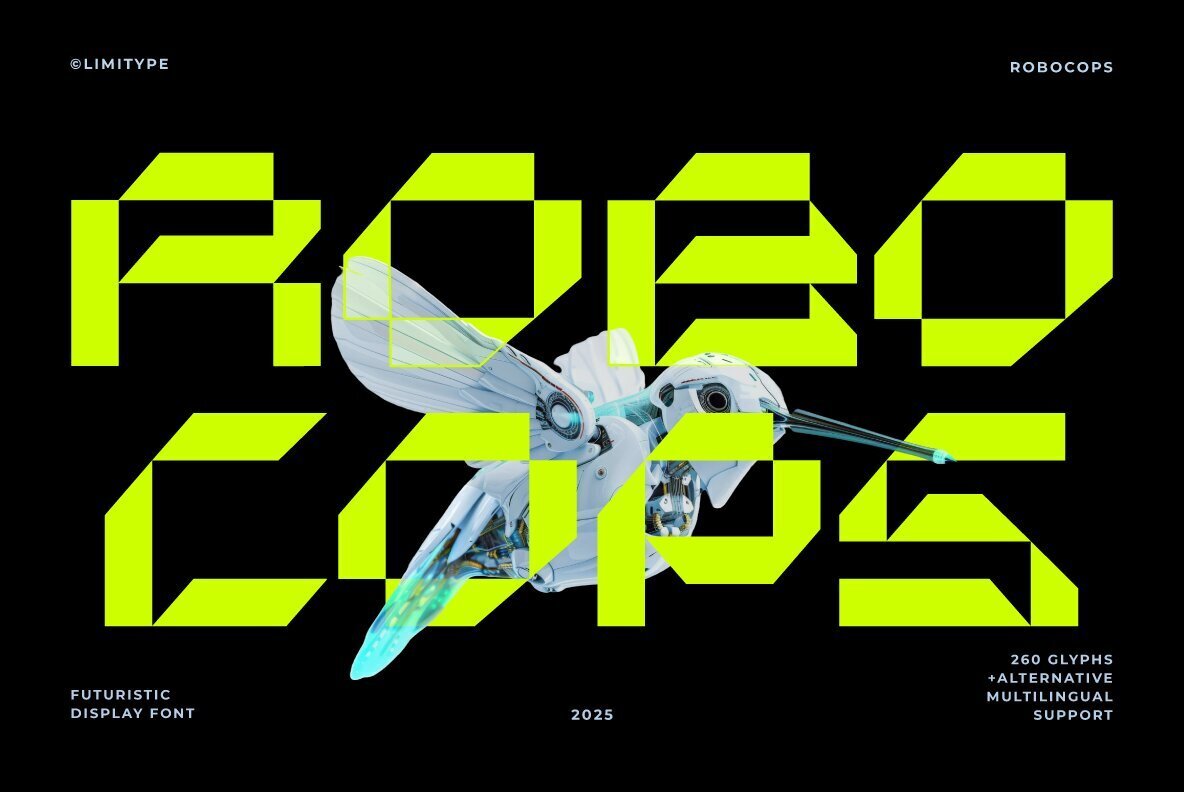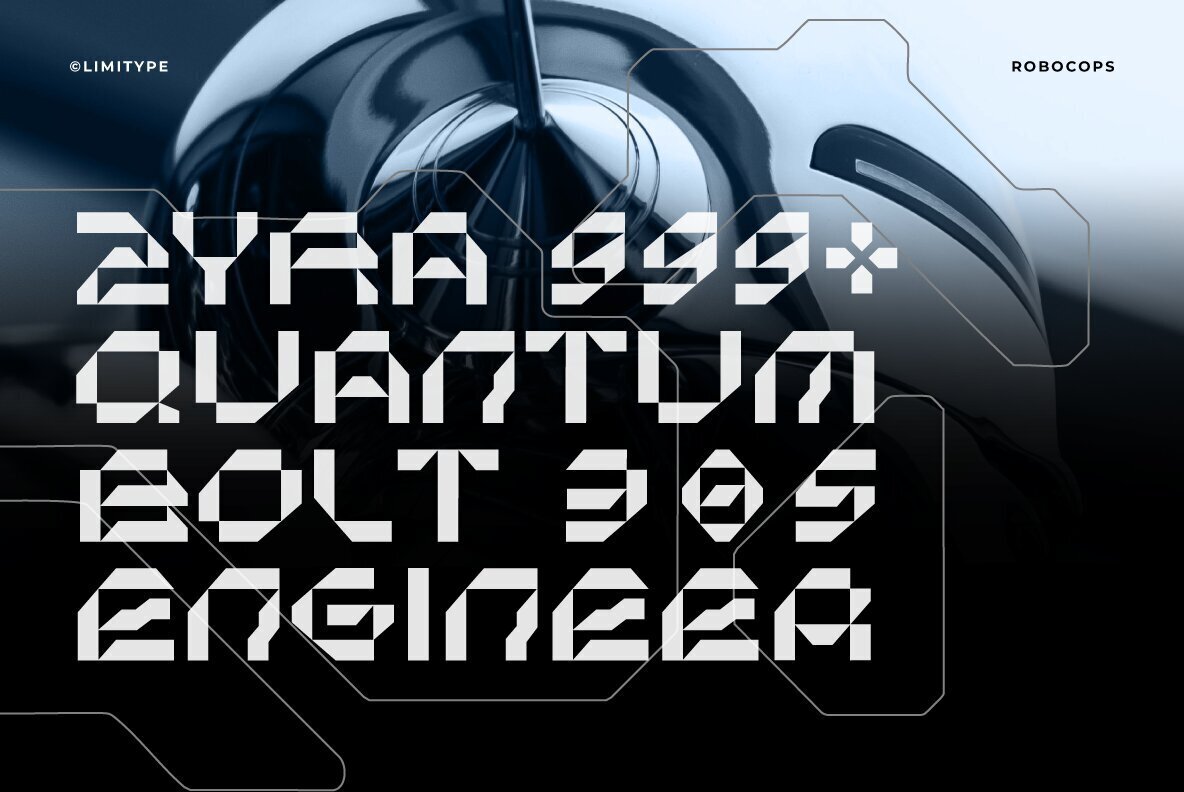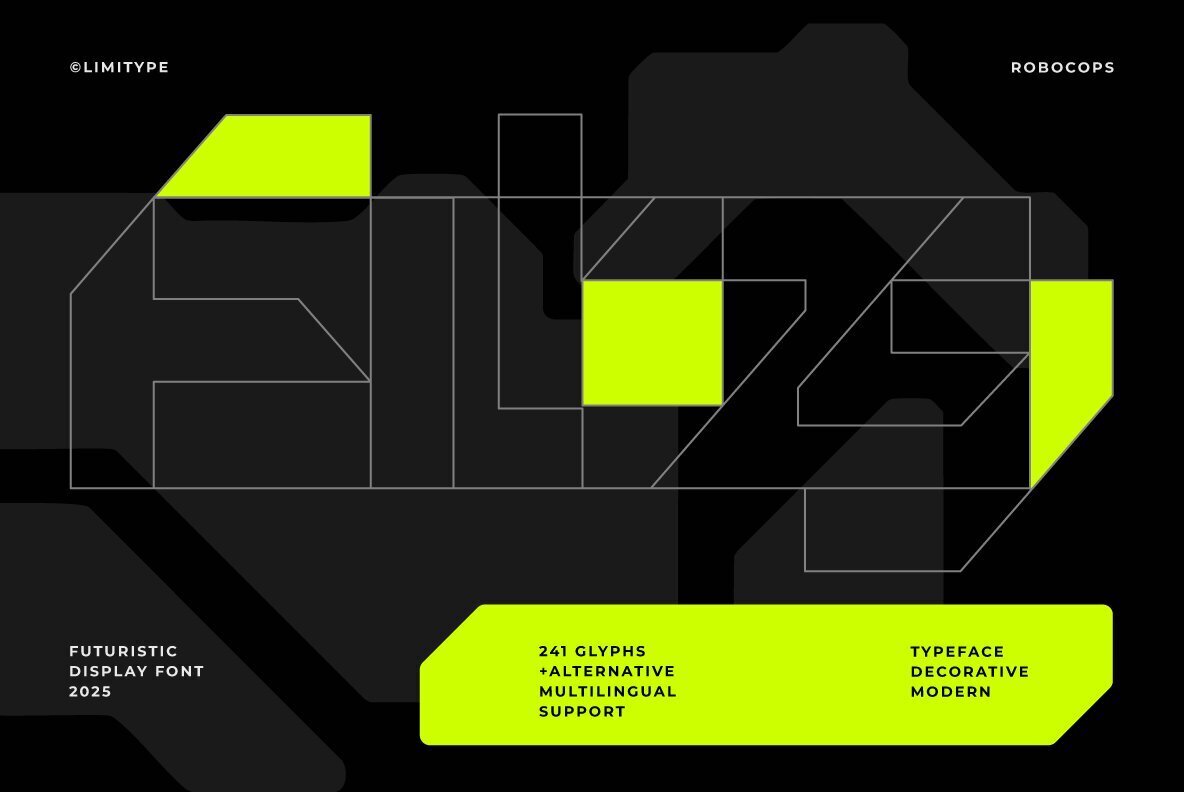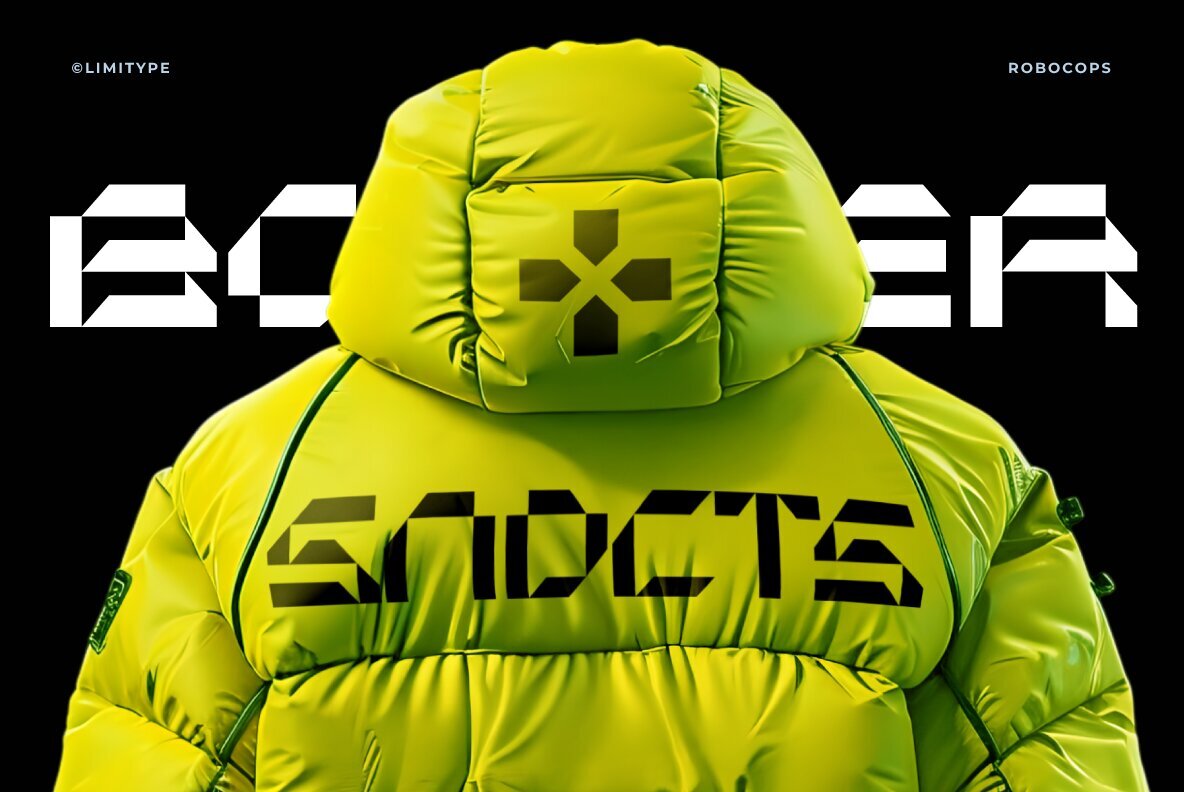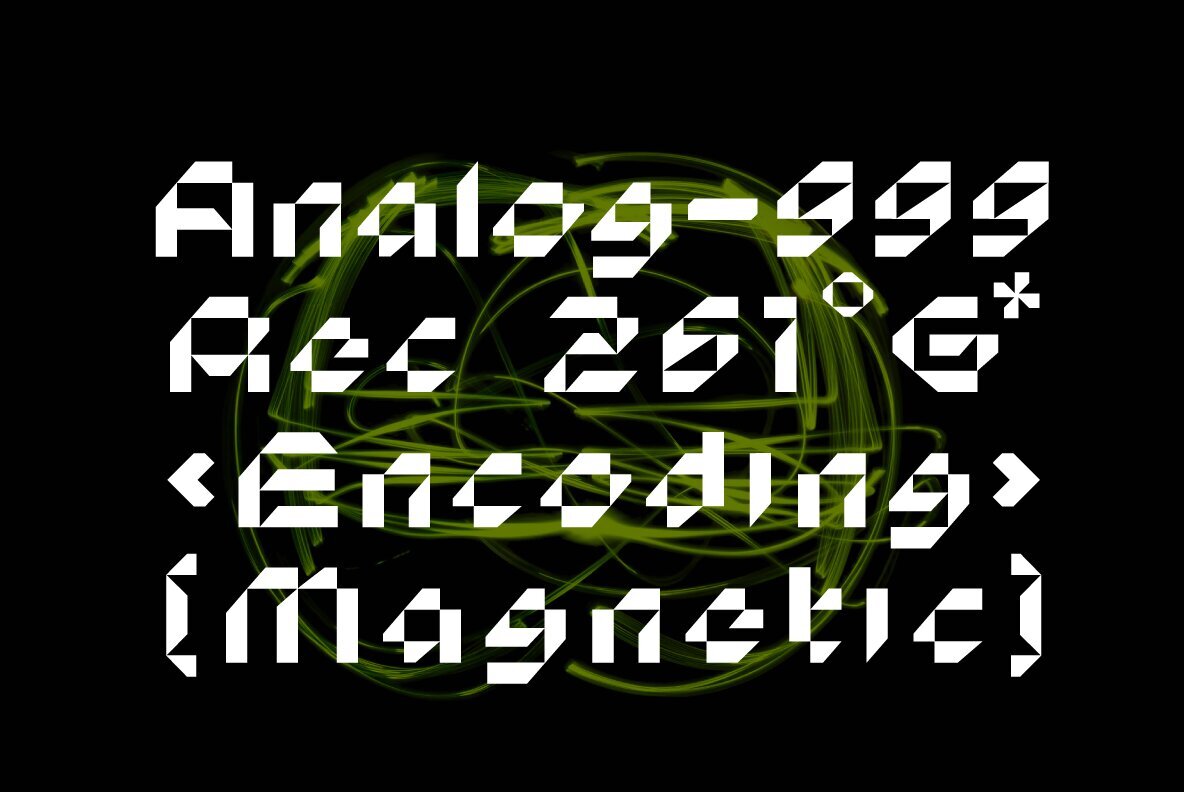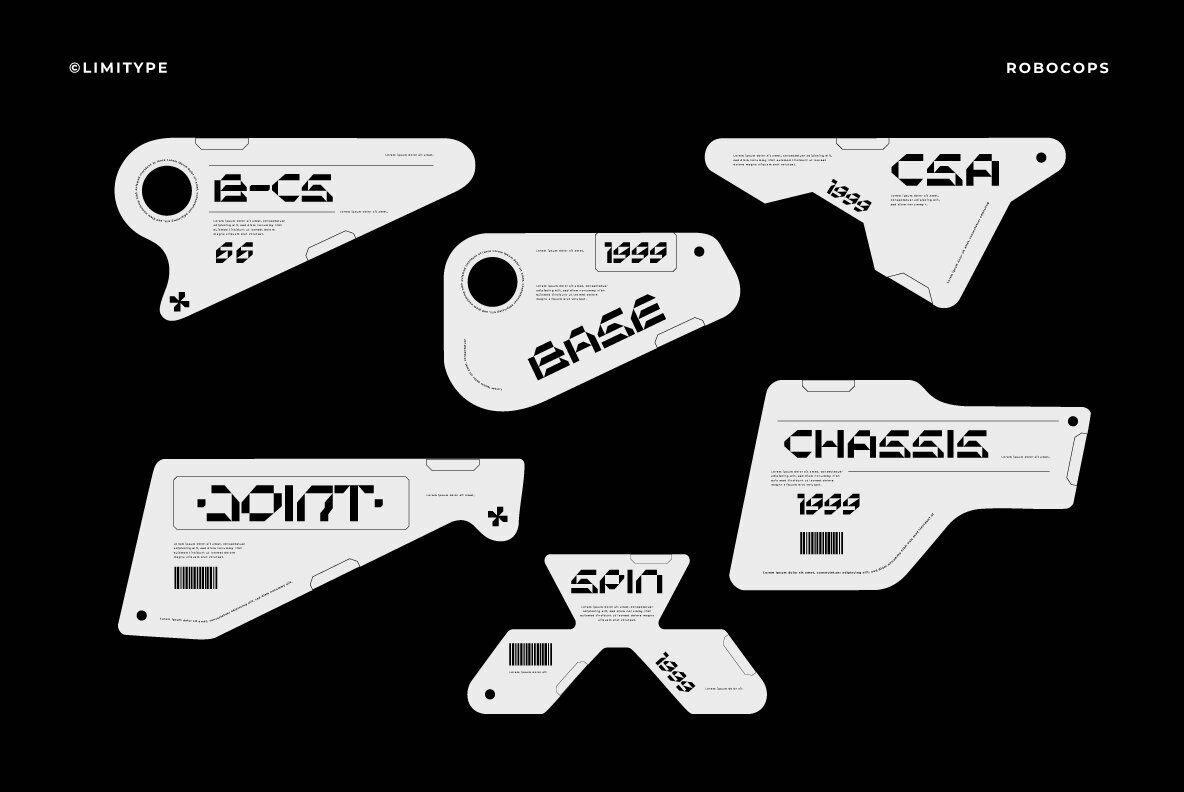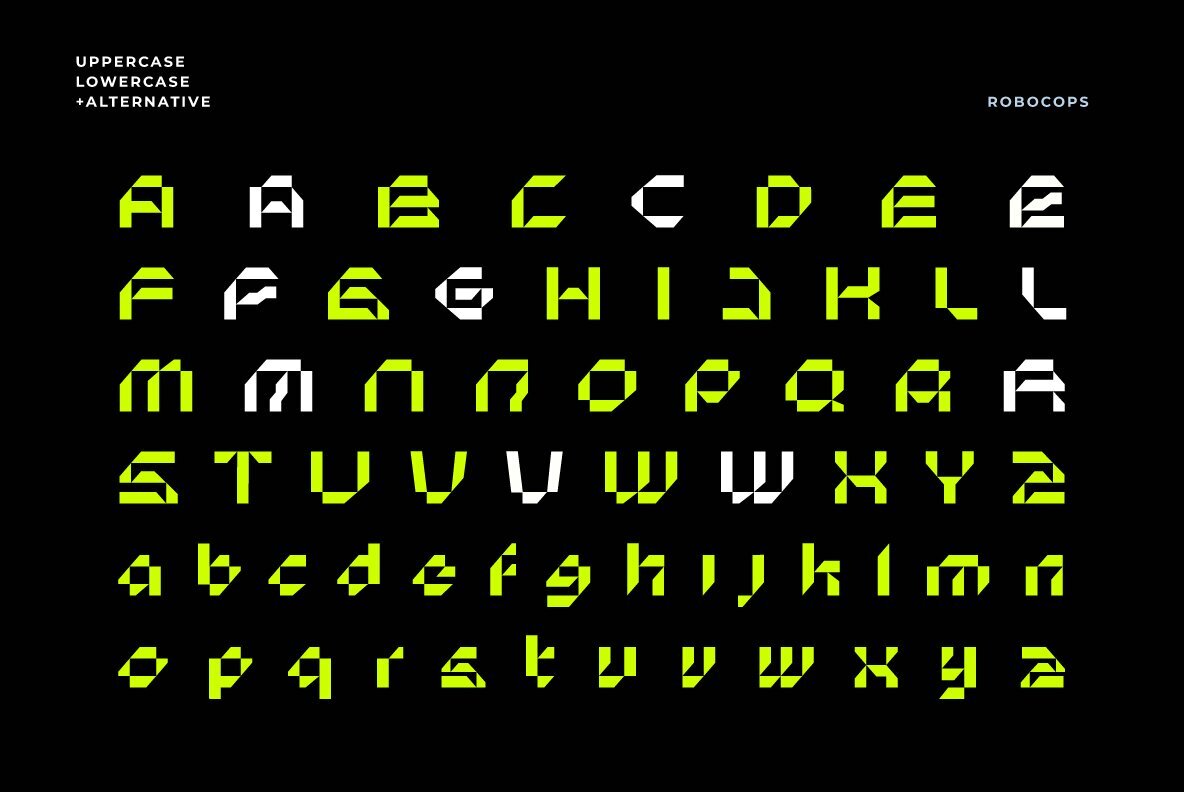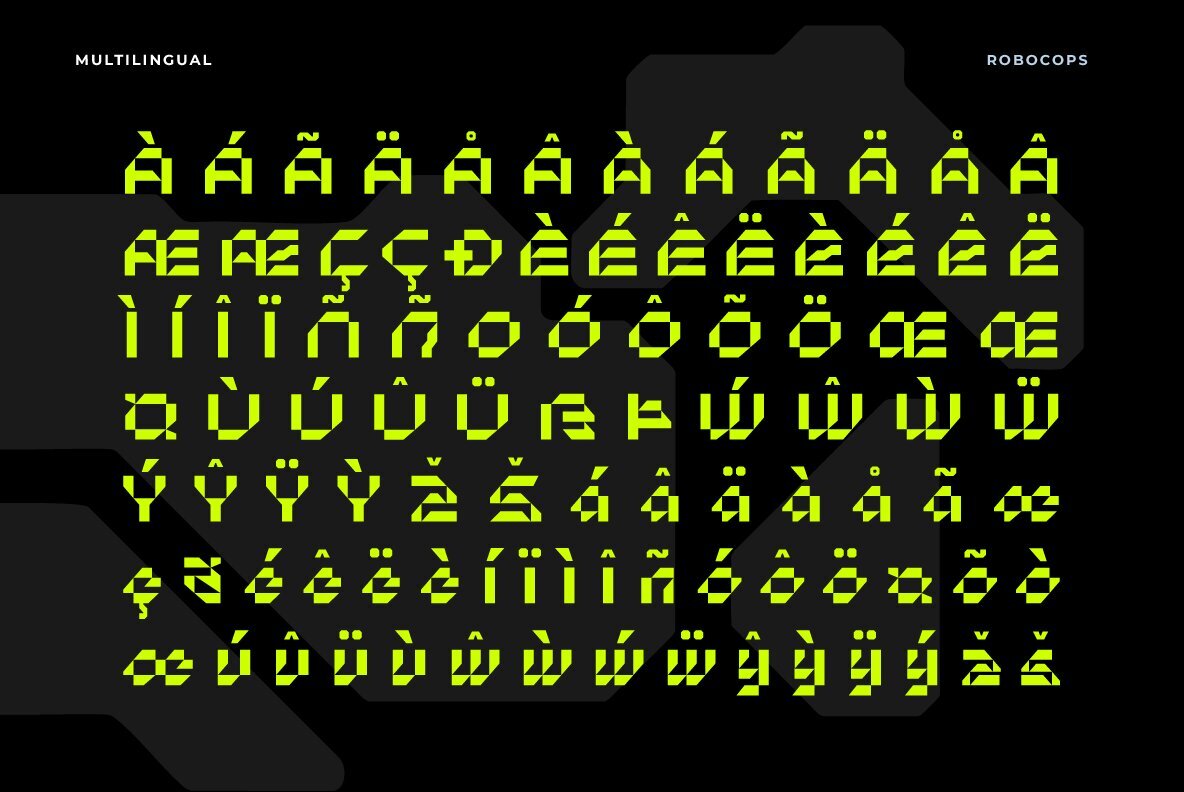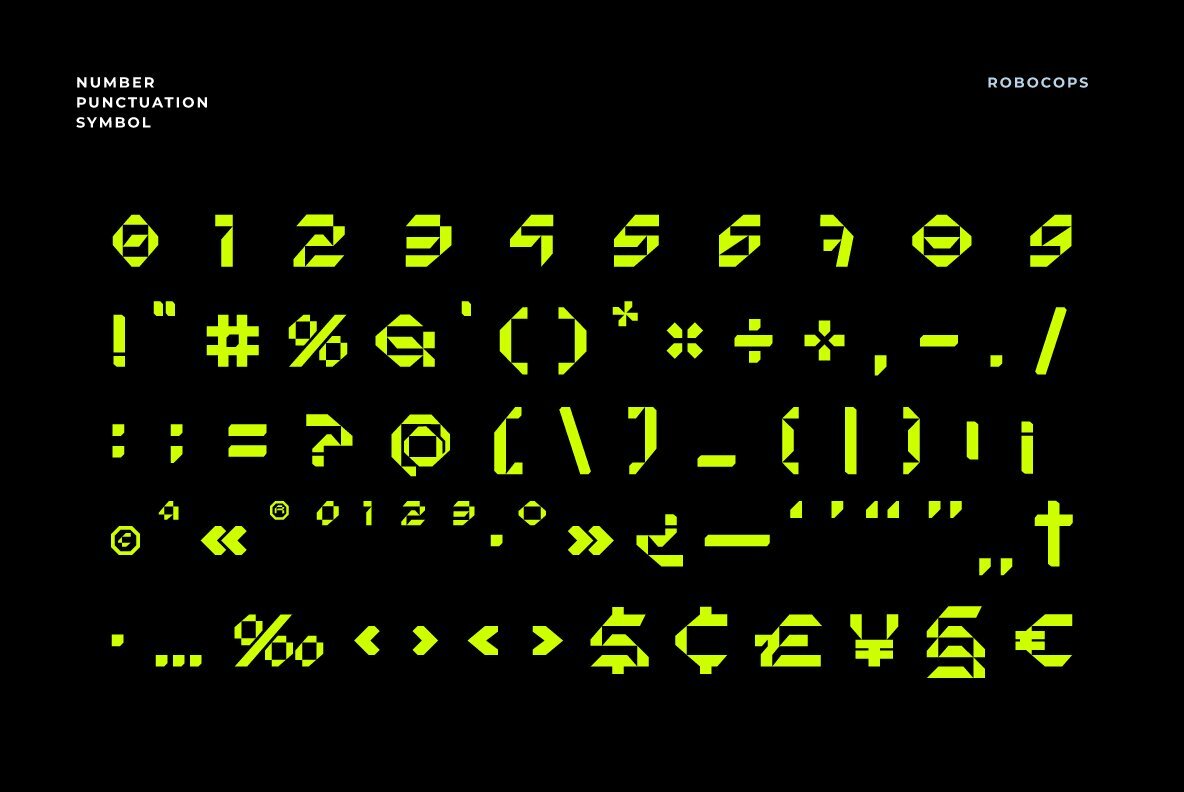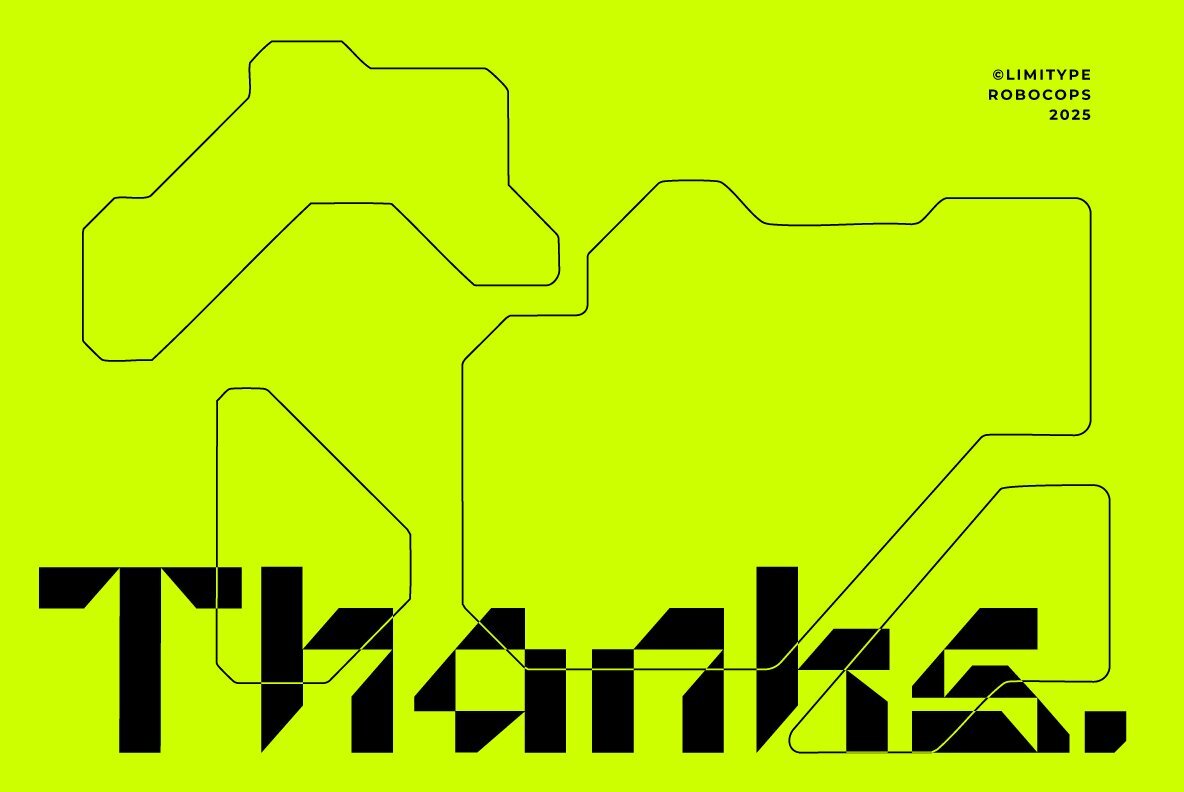
Robocops Font
Robocops Display
Robocops captures the essence of the future with its bold geometric letterforms and sharp angular details. Designed for maximum visual presence, this display font offers a striking, modern aesthetic that commands attention. The clean structure is ideal for projects seeking a sense of precision and innovation. Perfect for designers working on sci-fi, tech, gaming, or cyberpunk projects, Robocops delivers strong character and a distinctive look. Each letterform is meticulously crafted to ensure clarity and impact, making titles, headlines, and logos stand out in any digital or print environment.Robocops Bold Futuristic Display Font